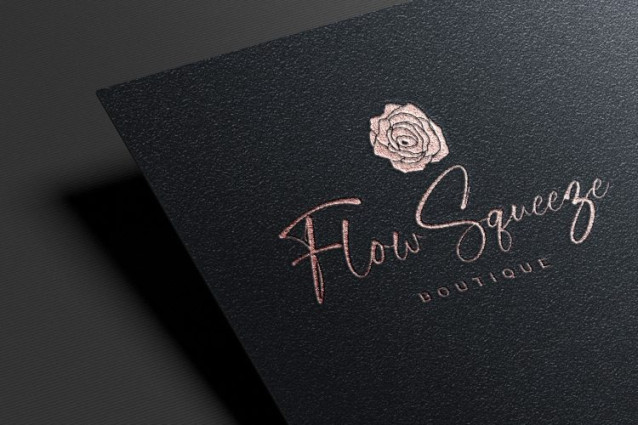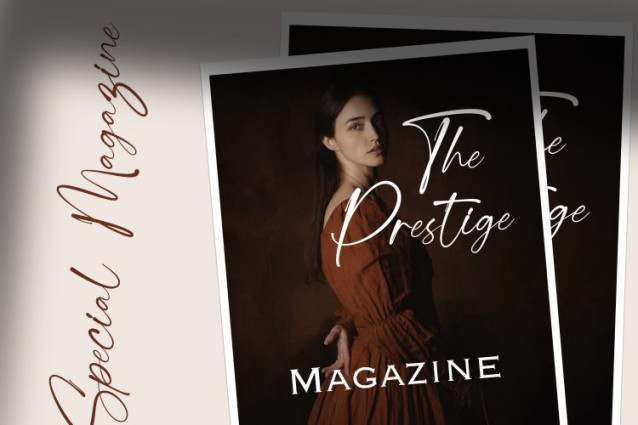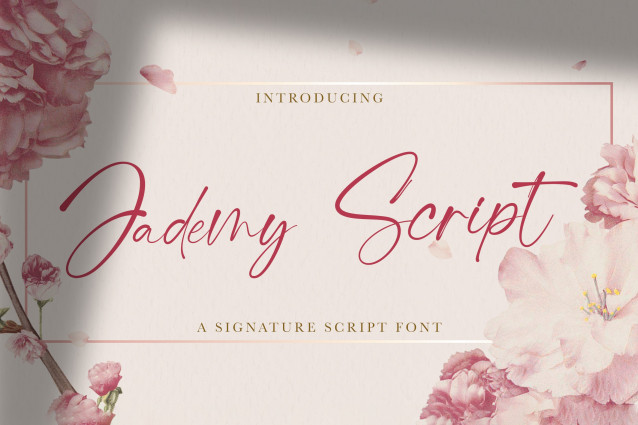
Jademy Script Font
Jademy Script Font is a refined signature font that exudes elegance and sophistication. Designed with fluid strokes and graceful curves, this script font is perfect for personal branding, wedding invitations, luxury packaging, and high-end editorials. Its natural hand-drawn appeal offers a personal touch while maintaining a modern and stylish look, making it an ideal choice for professionals and creatives alike. With multilingual support and a variety of ligatures, Jademy provides versatility and beauty in every letter, ensuring your designs stand out with charm and finesse.